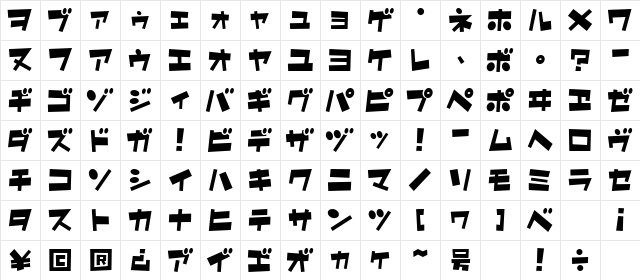
ShotaroV3KT Regular
Design Context for ShotaroV3KT Typeface
ShotaroV3KT offers clean, dependable letterforms without strong stylistic allegiance, making it a practical choice for designers who need flexibility.